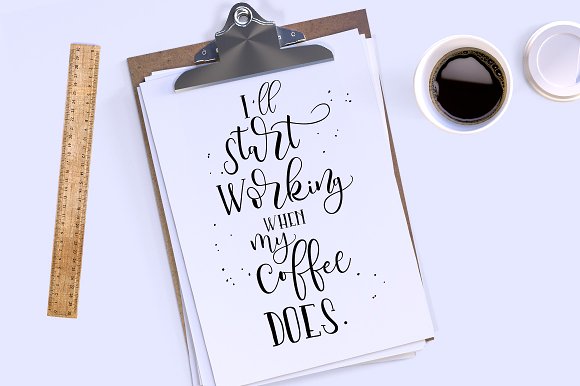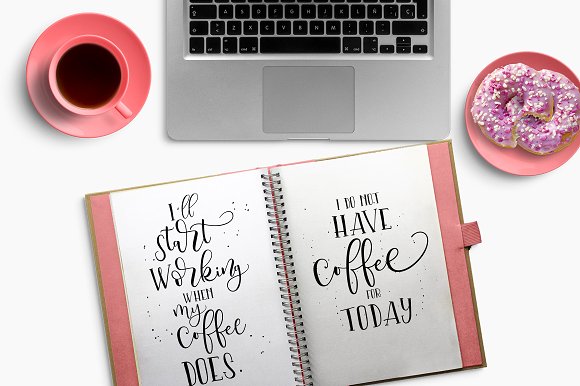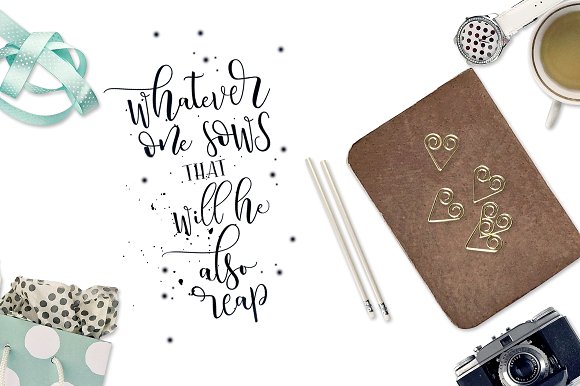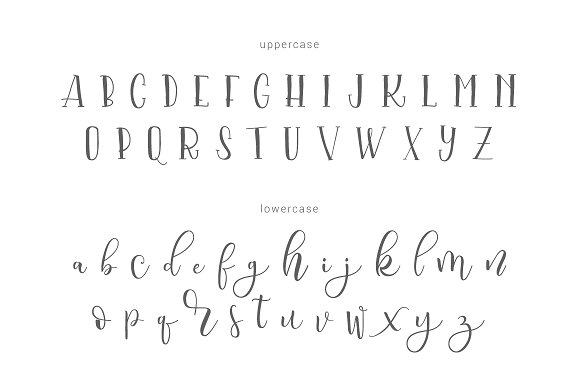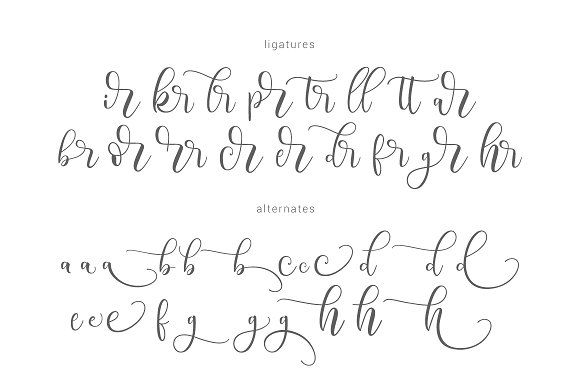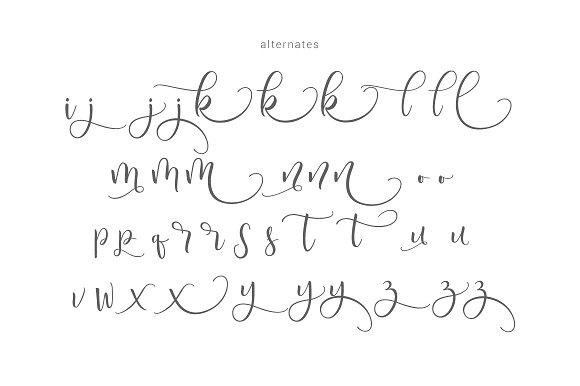
HomeScript FontsSerangkai Font Script Fonts Serangkai Font FacebookXPinterestWhatsApp Serangkai Font Poster 2 Serangkai Font Poster 3 Serangkai Font Poster 4 Serangkai Font Poster 5 Serangkai Font Poster 6 Serangkai Font Poster 7 About Serangkai Font Serangkai is a simple typeface with beautiful fluid letters. DOWNLOAD NOW People also explored Nabuli Font Dreamlike Script Font Lazy Day Font Valentwin Font Wathelmina Font Chicano Font Valentines Font California Font Noirden Font 387 0 TagsSerangkai Font Previous articleAlmaida FontNext articleMaximaz Font LEAVE A REPLY Cancel reply Comment: Please enter your comment! Name:* Please enter your name here Email:* You have entered an incorrect email address! Please enter your email address here Website: Save my name, email, and website in this browser for the next time I comment. Personal Use Free Kensin Personal Use Free Read more about this font Choco Shake Font Personal Use Free Read more about this font Adelia Font Personal Use Free Read more about this font Bajt Rounded Personal Use Free Read more about this font BLOG Best Fonts for T-Shirt Design – Top 2025 Picks In 2025, t-shirt design has become more than just fashion—it's a form of self-expression. Whether you're... Best Fonts for YouTube Videos: Make Your Thumbnails Stand Out Exploring Font Trends Free vs Paid Fonts: Why Investing in Premium Fonts Is Worth It